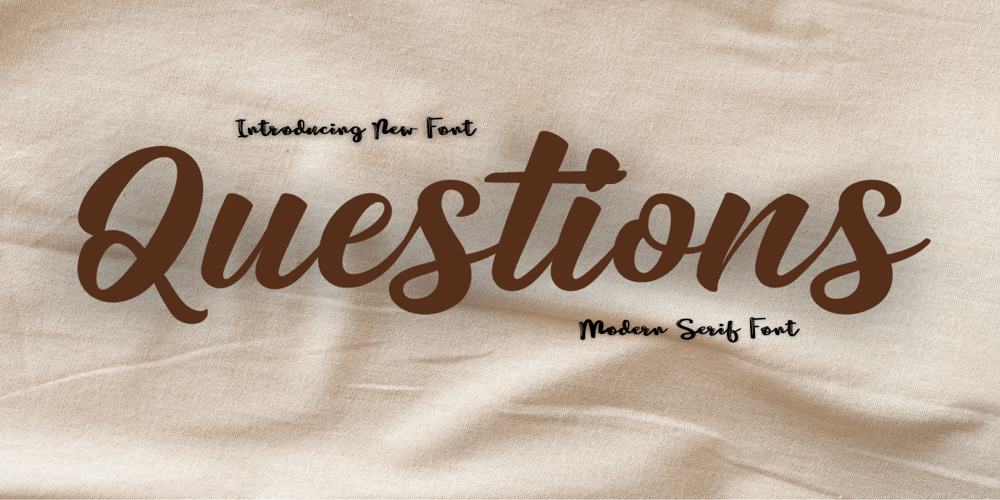
Questions Modern Serif Font Family was designed by Vojtěch Preissig and published by Adita Fonts. Questions Modern Serif contains 1 styles and family package options. Questions is a hand-brushed script with OpenType features such as stylistic alternates, contextual alternates, ligatures, and more. The bold letter makes for great expressive designs. The font is suitable for logos, letterhead, apparel, labels, headlines, and more. Add this lovely freebie to your creations and take your designs to the next level!